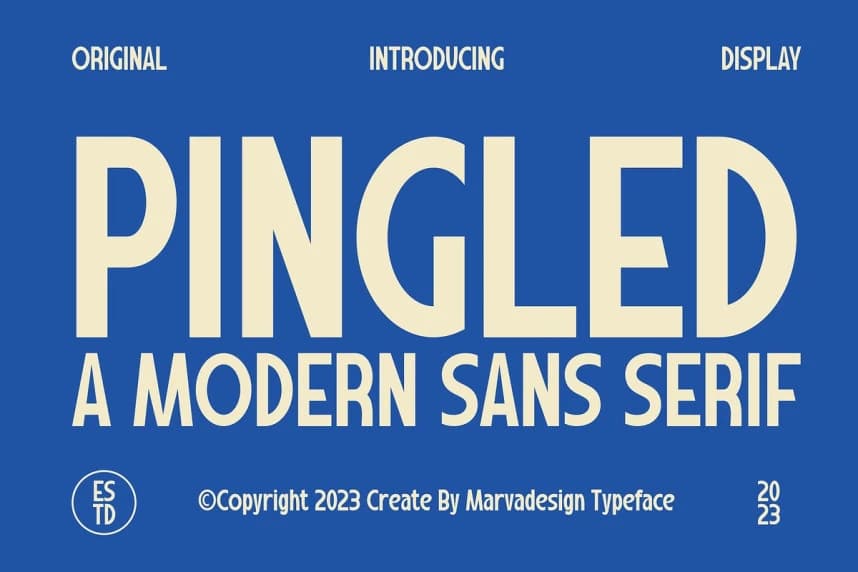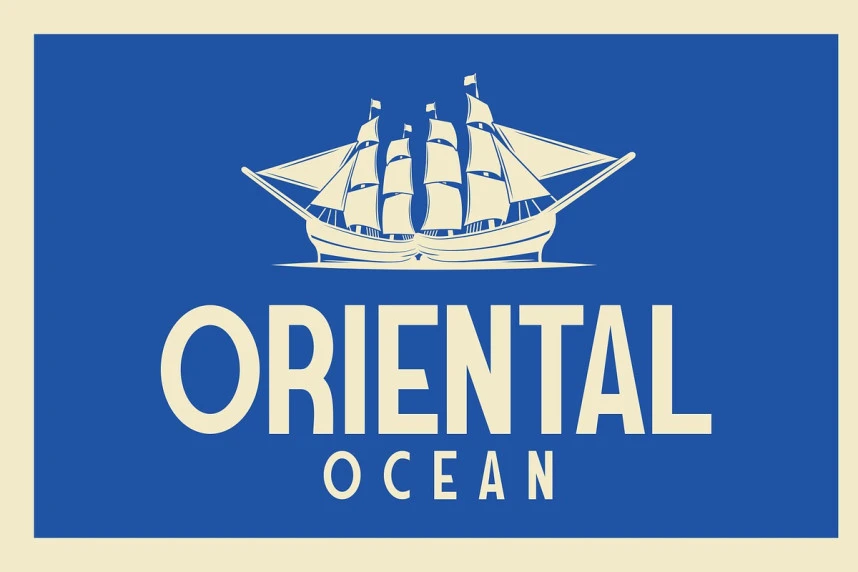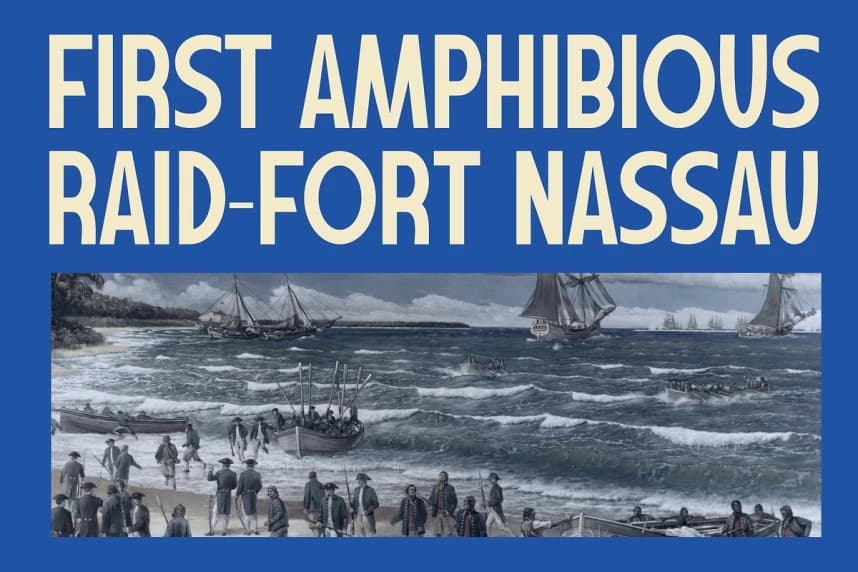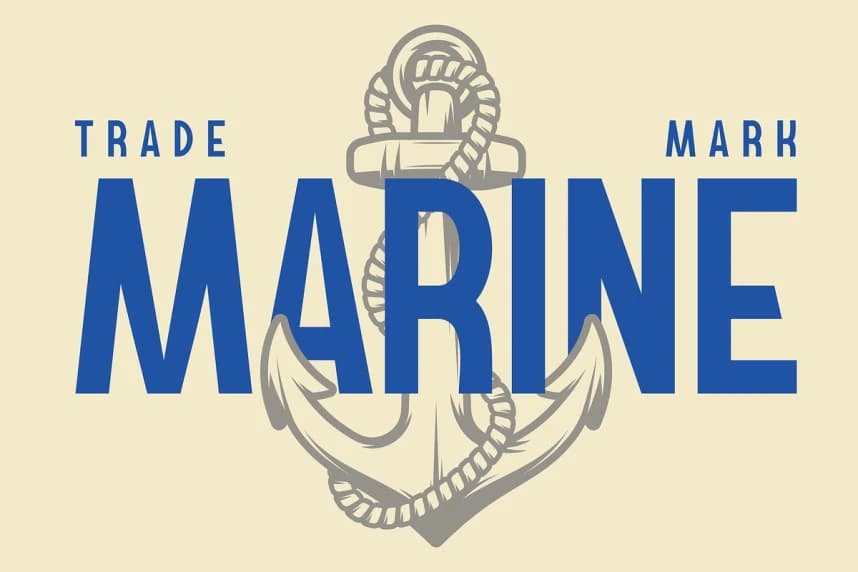
Pingled Font
Pingled Font - A Modern Sans Serif Font is a bold and authentic display font. The font is suitable for any branding project like logo, Template Design, Product and many more. outstanding in a wide range of contexts.